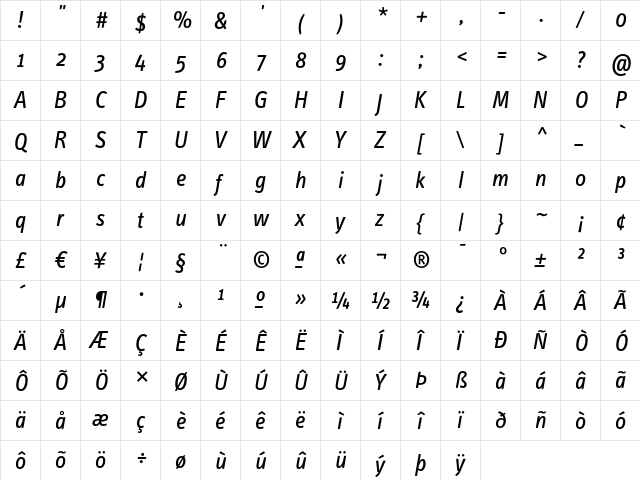
InfoTextBook Italic
Design Context for InfoTextBook Typeface
InfoTextBook takes a measured approach to typography — its balanced proportions and neutral character make it a reliable workhorse for both digital and print work. The dynamic lean of this cut emphasises speed and emphasis in any layout.
Pro Tip: Try InfoTextBook for annotation and caption copy alongside an upright companion — the contrast in angle creates a dynamic but ordered typographic system.